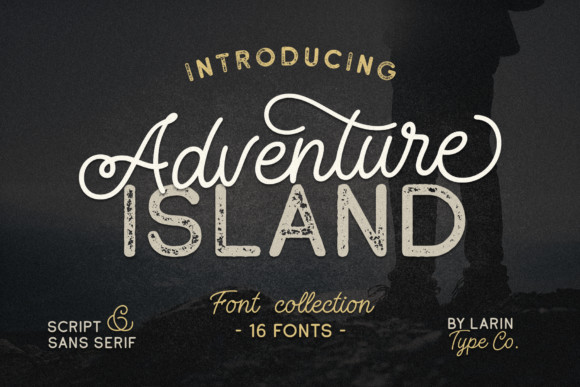
Adventure Island Font Duo
Adventure Island is a spectacular duo font (script and display). Incredibly versatile, this font fits a wide pool of designs, elevating them to the highest levels. Add this font to your favorite creative ideas and notice how it makes them come alive!